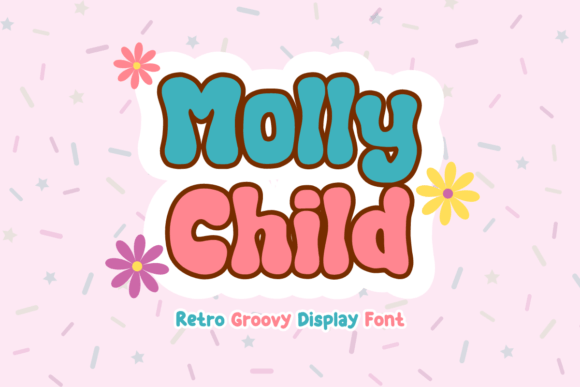
Behold, the Molly Child Font, an extraordinary display font family crafted with retro and vintage aesthetics by Minimalist Eyes, ready to take your creative projects to new heights! This font, with its timeless charm, is the ultimate choice for those who seek a unique touch in their designs.
With Molly Child, you'll embark on a journey into the past, where the magic of the 70s and 80s comes alive. Its groovy and retro vibes will captivate your audience, whether in posters, t-shirt quotes, sweaters, tote bags, stickers, or sublimation projects. Let your creativity flow as you add an undeniable touch of nostalgia to your designs, evoking memories of simpler times.
The Molly Child Font is a versatile masterpiece that knows no bounds. Its bold and playful characters command attention, making it ideal for display purposes. Whether you're creating logos, headlines, or social media graphics, this font will make your words leap off the screen, captivating your audience with its charisma.
This font family is a treasure trove of typographic delights. Its meticulously crafted uppercase and lowercase letters, along with a comprehensive range of numbers and punctuation marks, provide endless possibilities for creative expression. Unleash your imagination and create visually stunning compositions that tell captivating stories.